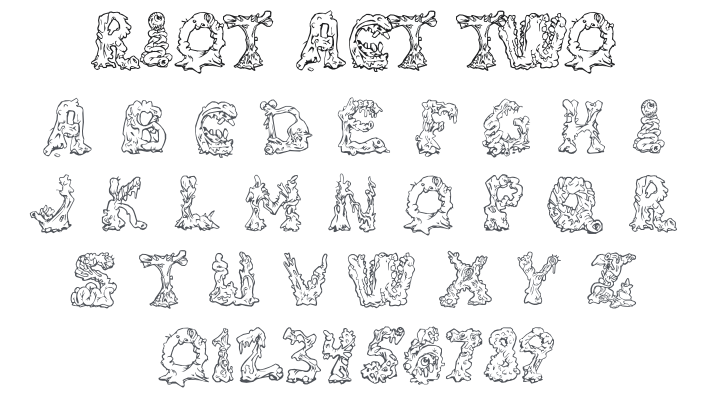
Riot Act Two Font Family
About Riot Act Two
Riot Act Two is a revolting horror display typeface built from what its creator describes as "monster viscera" — organic, grotesque letterforms that look like they've been assembled from guts, tendons, and twisted biological matter. The result is genuinely disturbing and viscerally unsettling. Perfect for extreme horror game titles, splatter movie posters, gore-themed designs, Halloween branding, and any headline that needs to make the viewer genuinely uncomfortable.